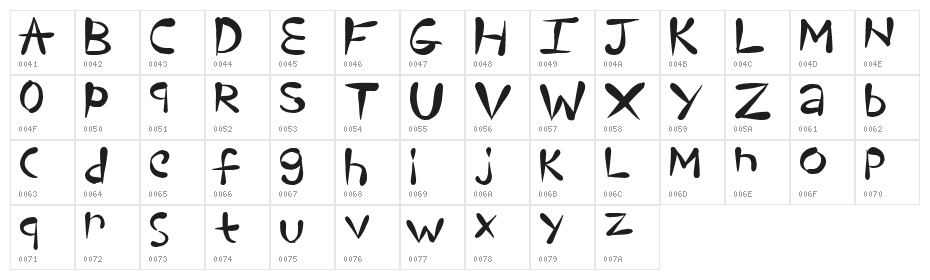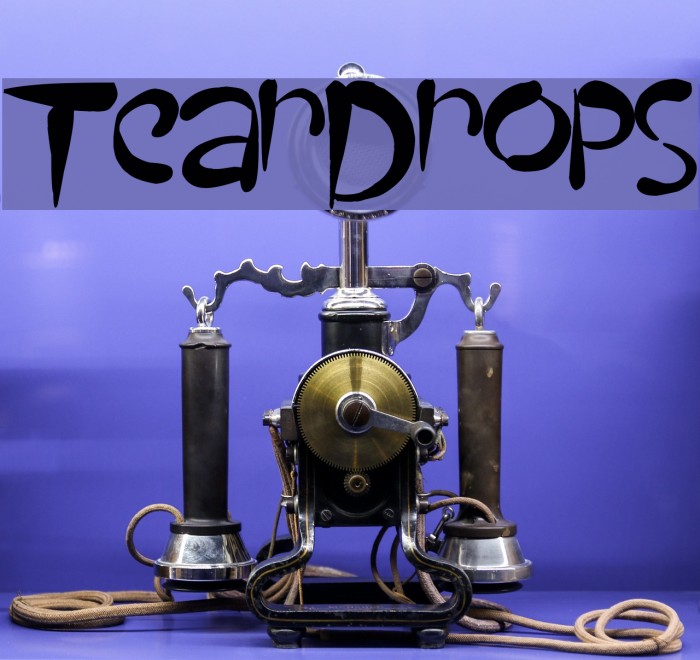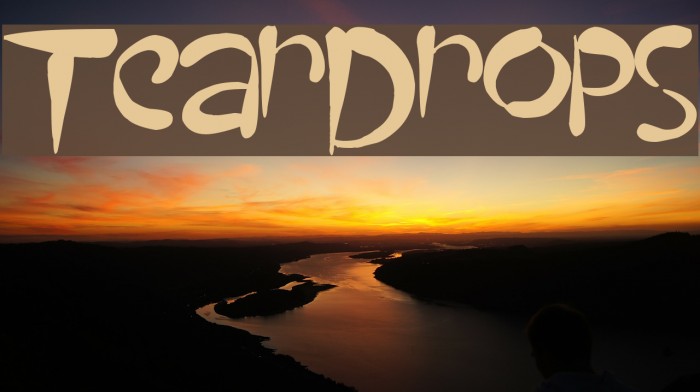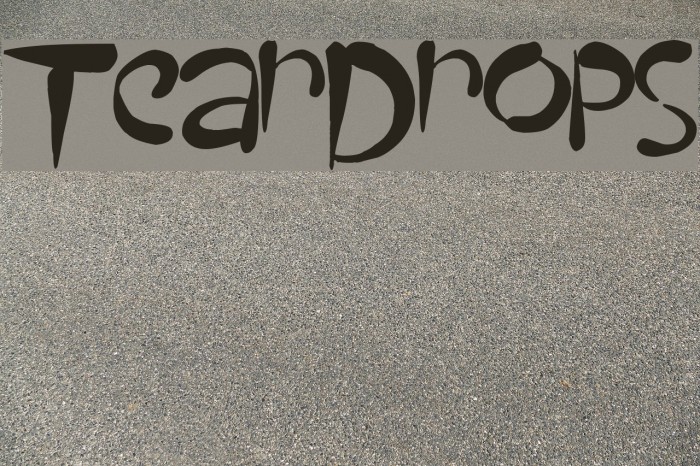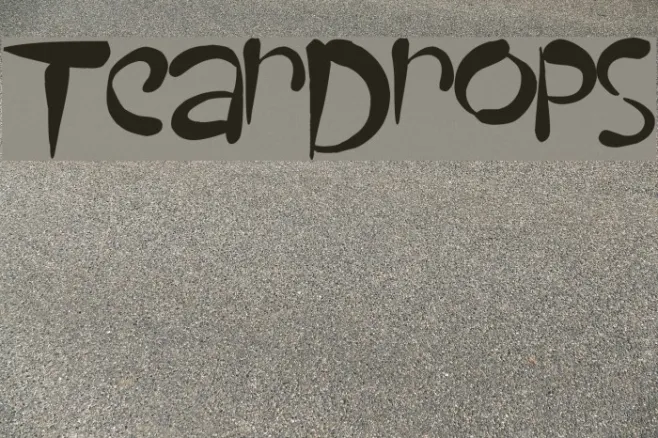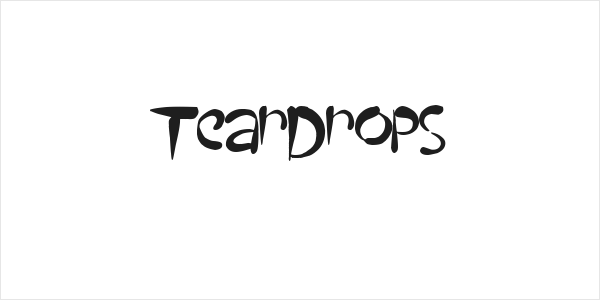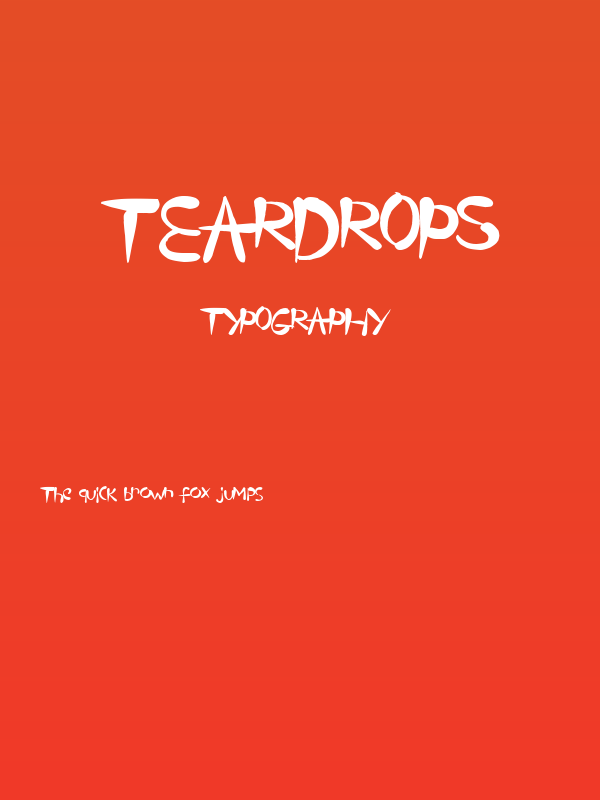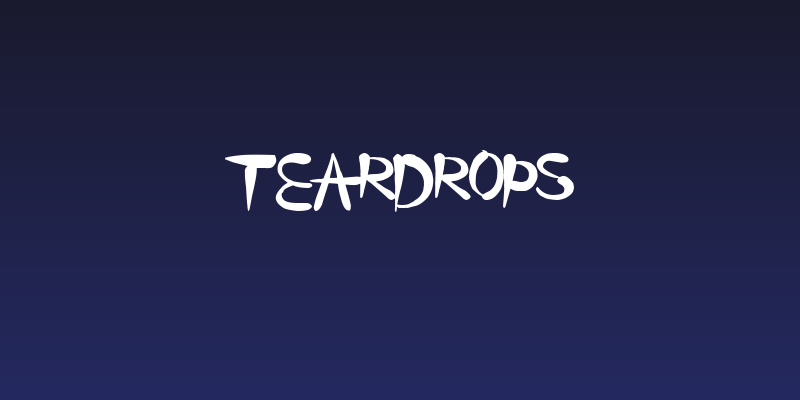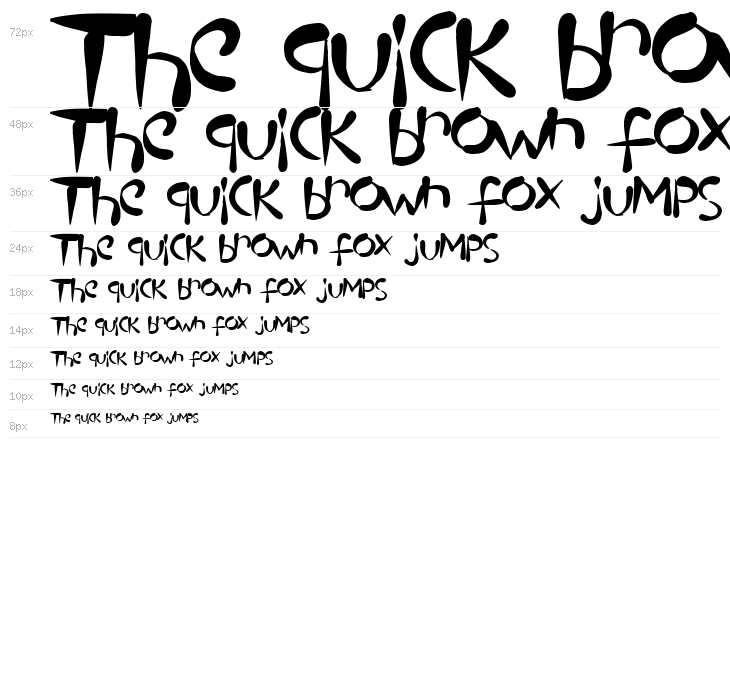
TearDrops Font
TearDrops Description
This font exhibits a bold and expressive style, characterized by its thick, brush-like strokes and dynamic, flowing forms. The letters have a playful and artistic appearance, with varying stroke widths that create a sense of movement and energy. The uppercase and lowercase letters maintain a consistent style, with some characters featuring unique, exaggerated curves and angles. The overall look is informal and creative, making it suitable for projects that require a touch of personality and flair.
| Use Case | Logos, Posters, Artistic Branding |
| Proposed Projects | Ideal for creative projects such as posters, album covers, and artistic branding that require a bold and expressive touch. |